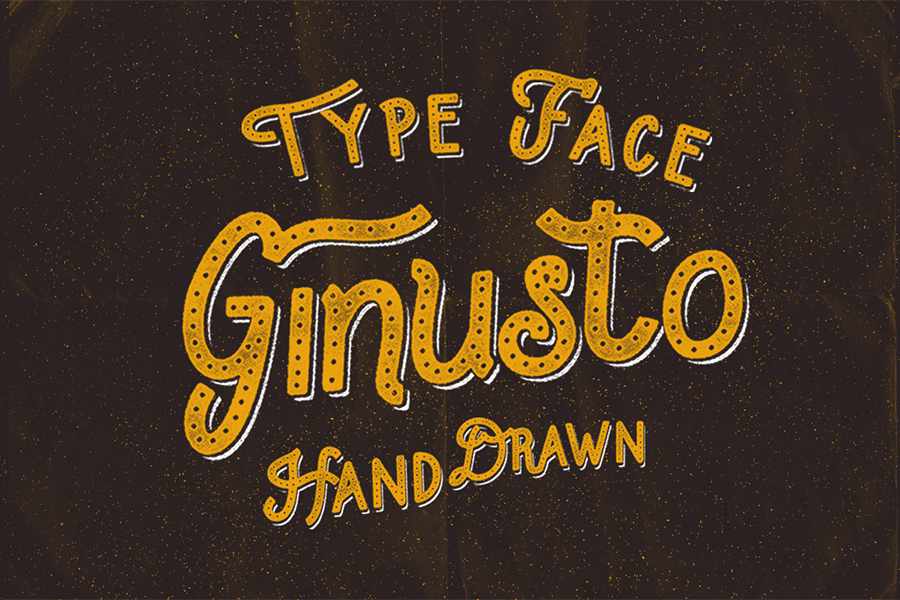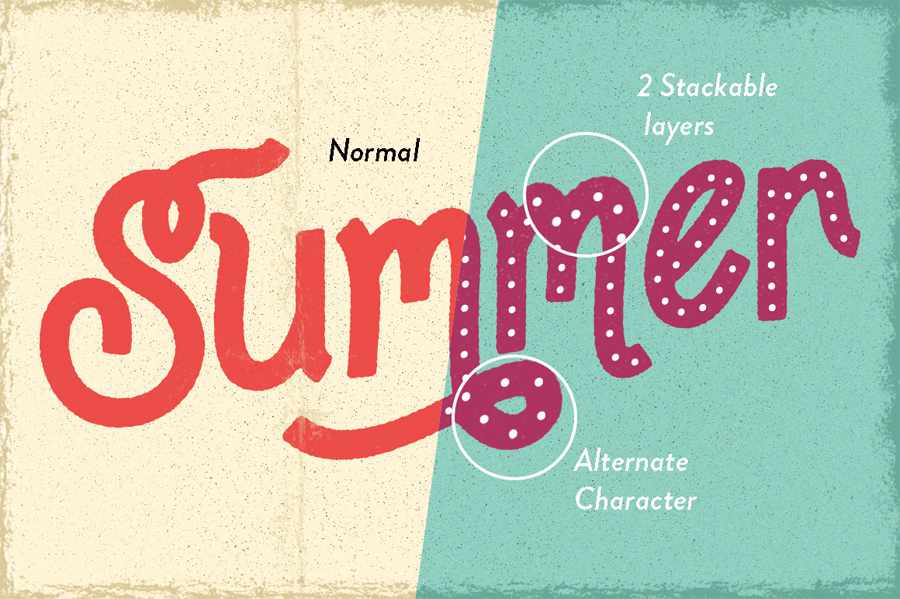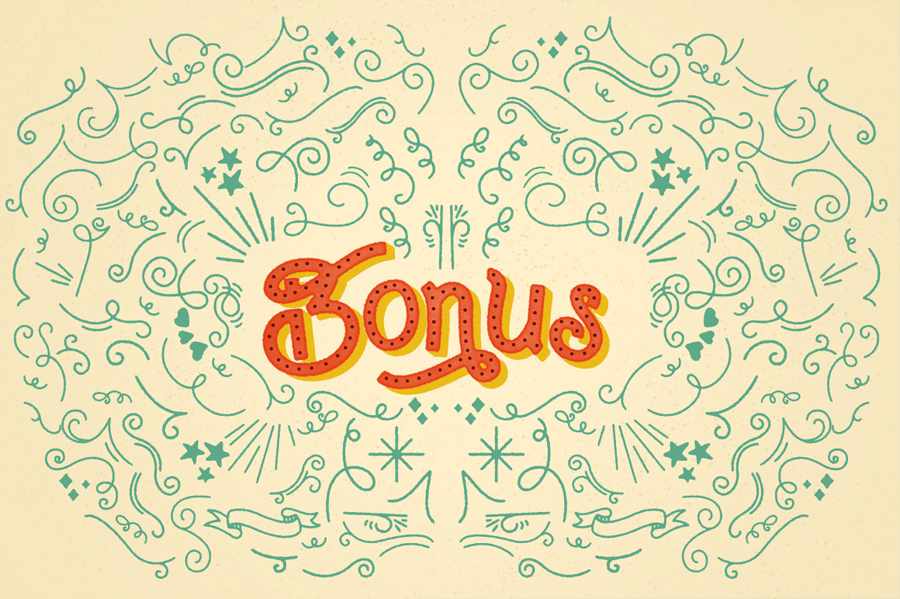
This week’s Creative Market’s free goodies featuring display font Gunisto Family that comes with 4 styles and bonus freebies of decorative elements in Adobe Illustrator format. You can actually use the solid font style and pair up with dotted style font to create more variation of styles with it.